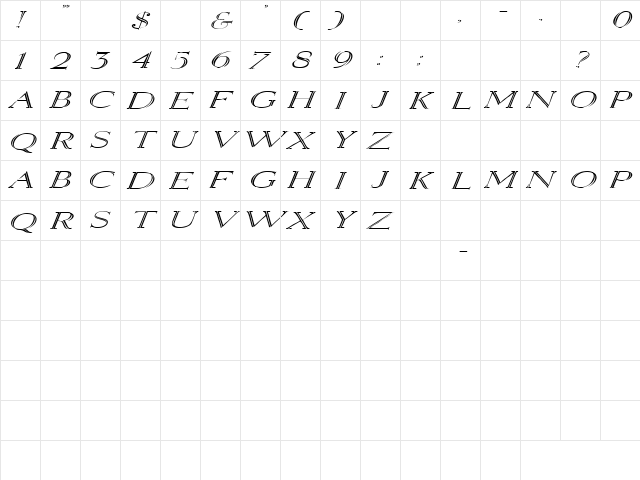
Night In The Ruts 3 Italic
Design Context for Night In The Ruts 3 Typeface
Night In The Ruts 3 offers clean, dependable letterforms without strong stylistic allegiance, making it a practical choice for designers who need flexibility. The slanted form adds forward momentum and visual energy.